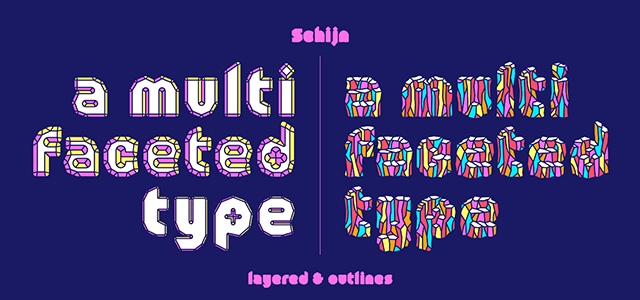
Schijn Font
Schijn Font is perfect for various design applications including contemporary art installations, experimental design projects, avant-garde fashion branding, minimalist architectural presentations, modern gallery exhibitions, progressive tech company identities, cutting-edge editorial layouts, conceptual advertising campaigns, artistic portfolio designs, and innovative cultural communications. This distinctive typeface excels in projects requiring visual intrigue and contemporary artistic expression that challenges conventional design expectations.
What makes Schijn Font so exciting is its fascinating exploration of perception and visual illusion through letterforms that play with optical effects and spatial relationships in unexpected ways. The font features unique character constructions that create visual depth, innovative spacing techniques that challenge traditional reading patterns, and distinctive proportions that shift perspective depending on viewing context. Its distinctive experimental character and artistic sophistication make it perfect for creative projects seeking to communicate innovation, artistic vision, and the kind of conceptual thinking that pushes design boundaries.
The Schijn Font family includes multiple stylistic variations and experimental alternates that enhance its versatility for different artistic applications. Each variation maintains the font's signature perceptual character while providing options for various conceptual design approaches. The family also features experimental ligatures, optical effect variations, and alternative character sets that allow designers to create truly unique typographic compositions that challenge viewer expectations.
Whether you're developing artistic brands, experimental campaigns, or cutting-edge design projects, Schijn Font Free Download provides innovative typography that transforms ordinary communications into thought-provoking visual experiences. This typeface challenges audiences to see text in new ways while celebrating the artistic possibilities of experimental typography. The font's conceptual appeal makes it particularly effective for art galleries, design studios, and creative professionals targeting audiences who appreciate innovative artistic expression and boundary-pushing design.
Schijn Font stands out by delivering genuine artistic innovation that opens new possibilities for creative expression while maintaining functional readability and purposeful design intent. Its carefully engineered optical effects and experimental proportions ensure that visual intrigue serves meaningful communication rather than mere novelty. From gallery exhibitions to cutting-edge branding, this font provides designers with tools to create communications that celebrate visual perception and demonstrate sophisticated understanding of experimental typography through innovative, perception-shifting design solutions.